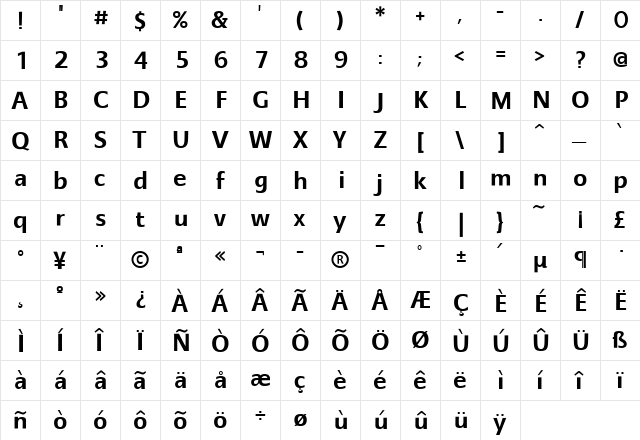
AIQuanta Bold
Design Context for AIQuanta Typeface
AIQuanta offers clean, dependable letterforms without strong stylistic allegiance, making it a practical choice for designers who need flexibility. The heavy weight commands attention and anchors typographic hierarchies.